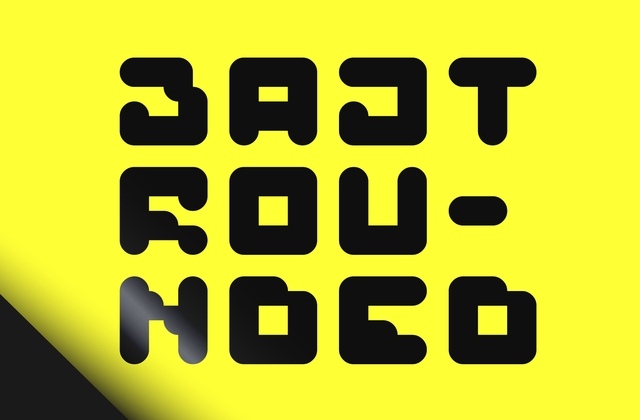
BAJT Rounded Font
BAJT Rounded Font is perfect for friendly tech startup branding, approachable software interfaces, modern children's products, progressive educational platforms, contemporary healthcare marketing, inclusive design agencies, warm technology services, and accessible digital applications. This welcoming typeface excels in applications where technological approachability and human-centered design are essential for creating inclusive and engaging brand experiences that bridge technology with humanity.
What makes BAJT Rounded Font truly exciting is its perfect fusion of technological precision and human warmth that captures the essence of user-friendly design and inclusive technology solutions. The font features softly rounded letterforms with gentle curves and approachable character details that remove the coldness often associated with technical typography while maintaining professional credibility. Its friendly personality and accessible character create an immediate sense of welcome and technological comfort that resonates with diverse audiences seeking approachable technology experiences and inclusive digital solutions. The typeface's humanistic appeal and modern functionality make it perfect for brands wanting to convey accessibility, innovation, and connection to the human side of technological advancement.
The BAJT Rounded Font family includes comprehensive weight range from Light to Bold, complemented by carefully rounded alternates that enhance its approachable aesthetic. The font offers extensive character sets with inclusive symbols, friendly ligatures, and accessibility-focused styling details that support diverse communication needs. Additional graphic elements including soft shapes, welcoming patterns, inclusive motifs, and human-centered design elements provide designers with complete branding tools rooted in accessible design principles and inclusive technology culture.